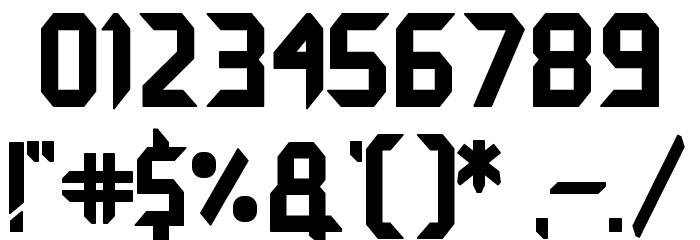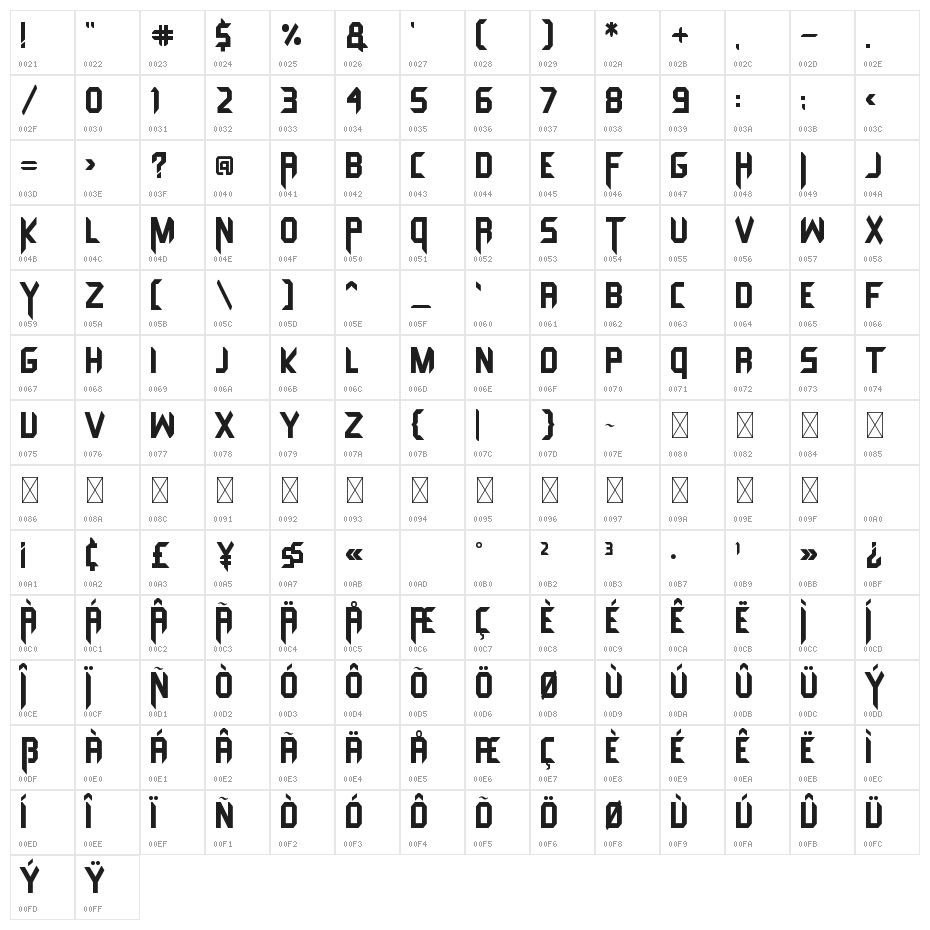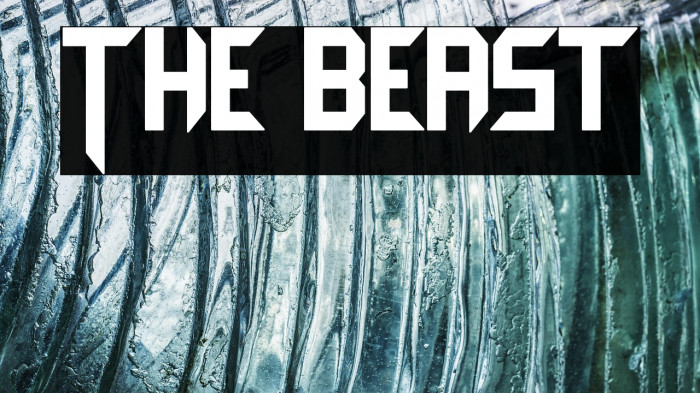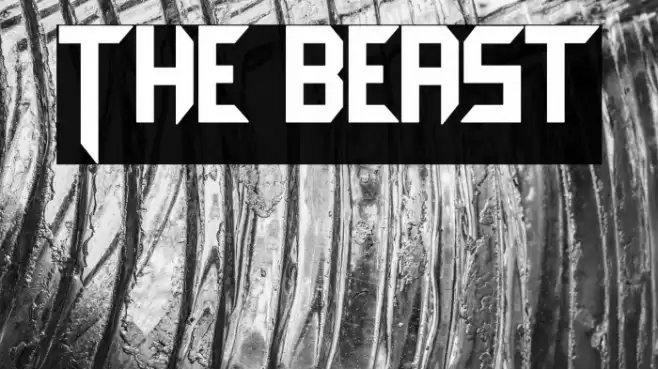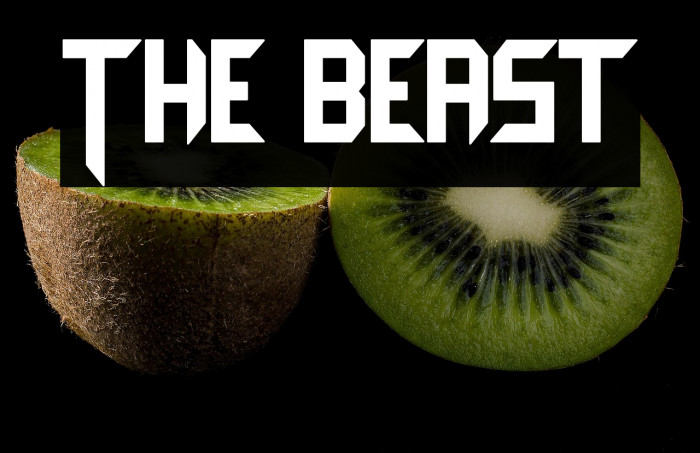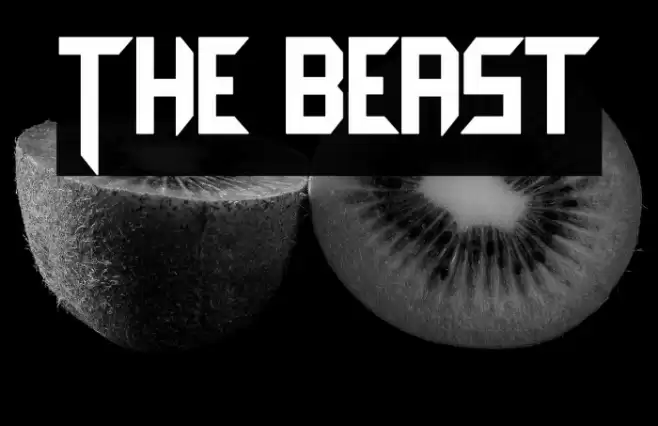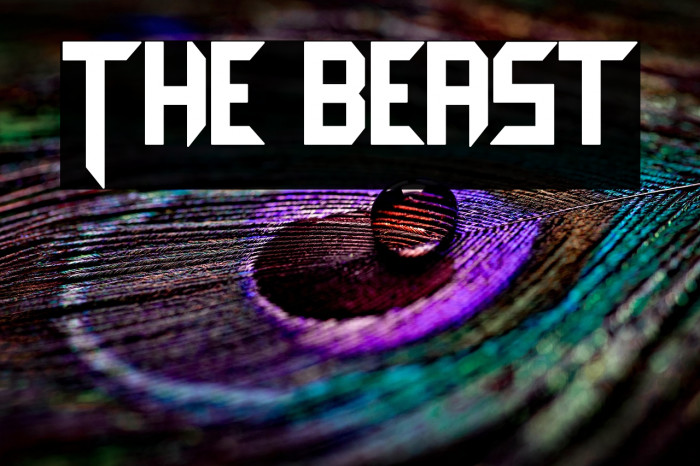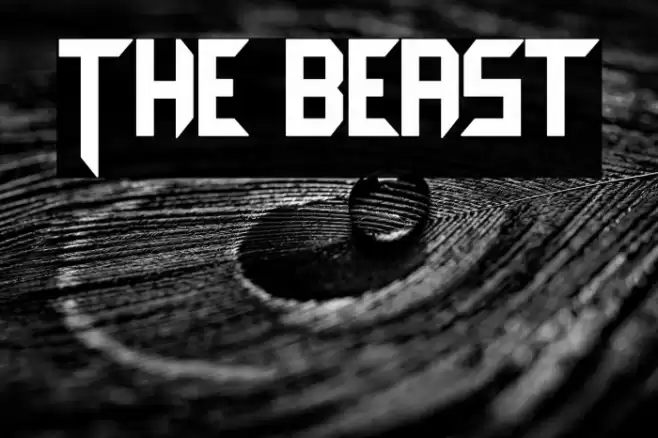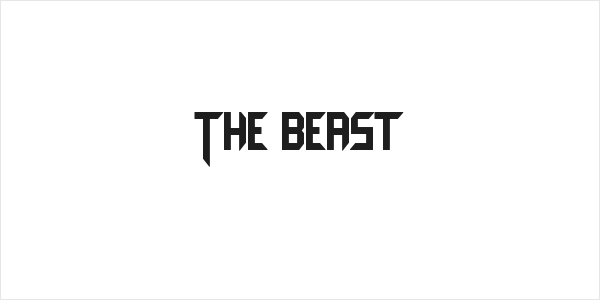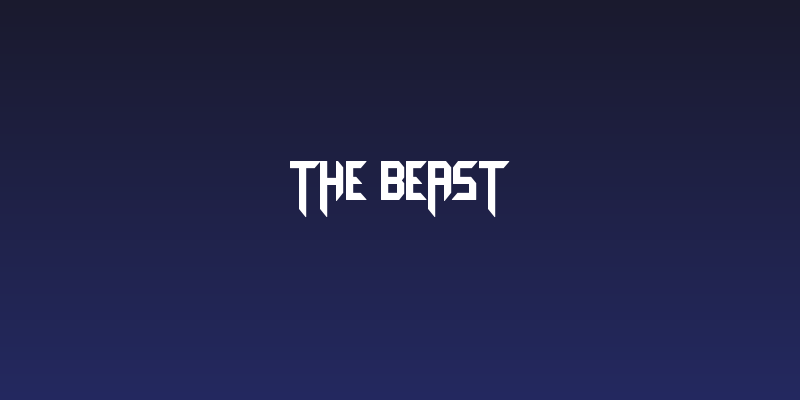
The Beast Font
The Beast Description
This font features a bold, angular design with sharp edges and geometric shapes, creating a striking and aggressive appearance. The uppercase letters are particularly prominent, with a consistent height and width that emphasizes their blocky structure. The numerals and special characters follow the same angular theme, ensuring uniformity across all characters. The font's style is reminiscent of futuristic or sci-fi themes, making it ideal for projects that require a strong visual impact. Its unique design is both eye-catching and memorable, suitable for various creative applications.
| Overall Style | Futuristic, Aggressive |
| Proposed Projects | Ideal for video game titles, movie posters, branding for tech companies, and any project needing a bold, futuristic look. |